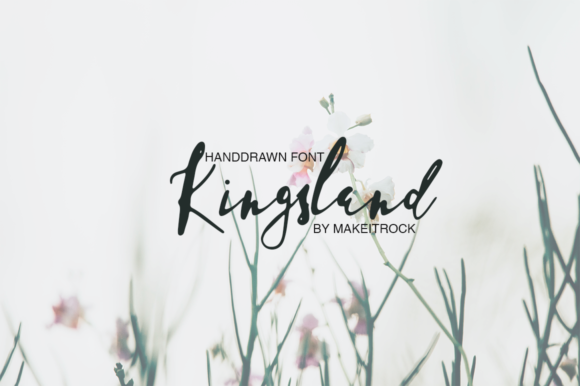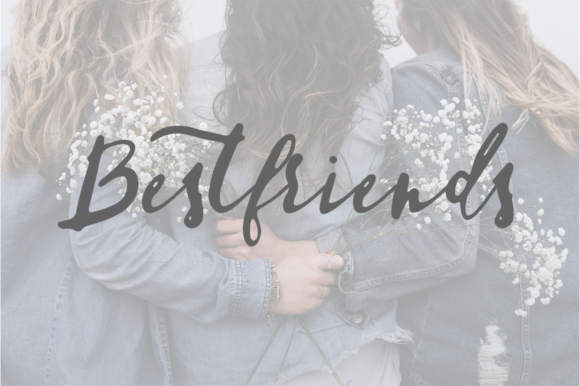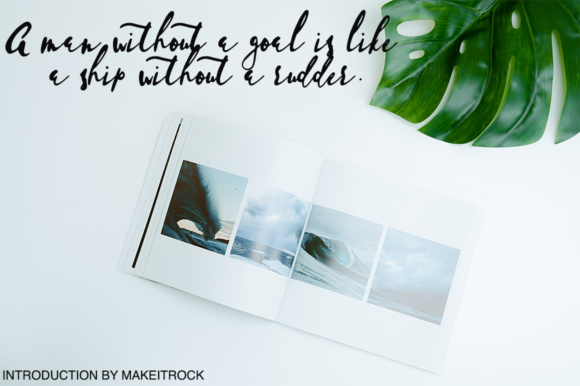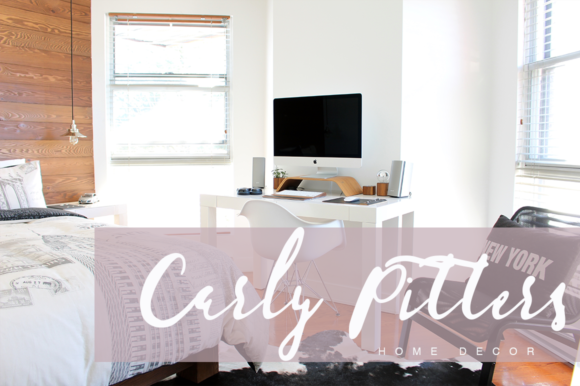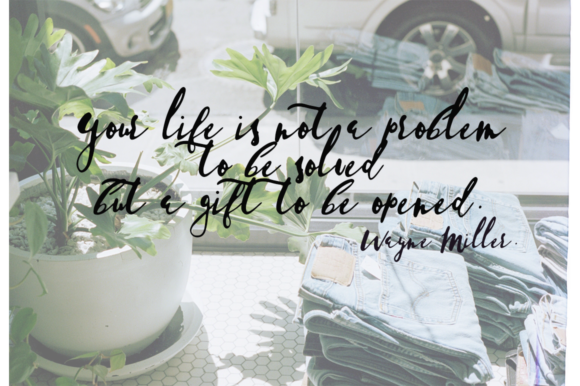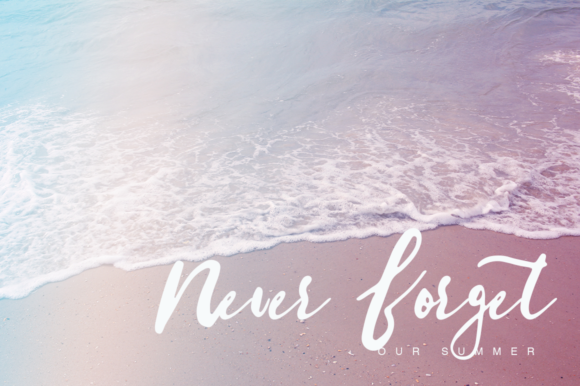
Kingsland Font
About Kingsland Font
Kingsland is a handwritten typeface with an unique look. It can be used for various purposes such as: logos, headings, wedding invites,quotes, and every other design that needs a elegant feel.